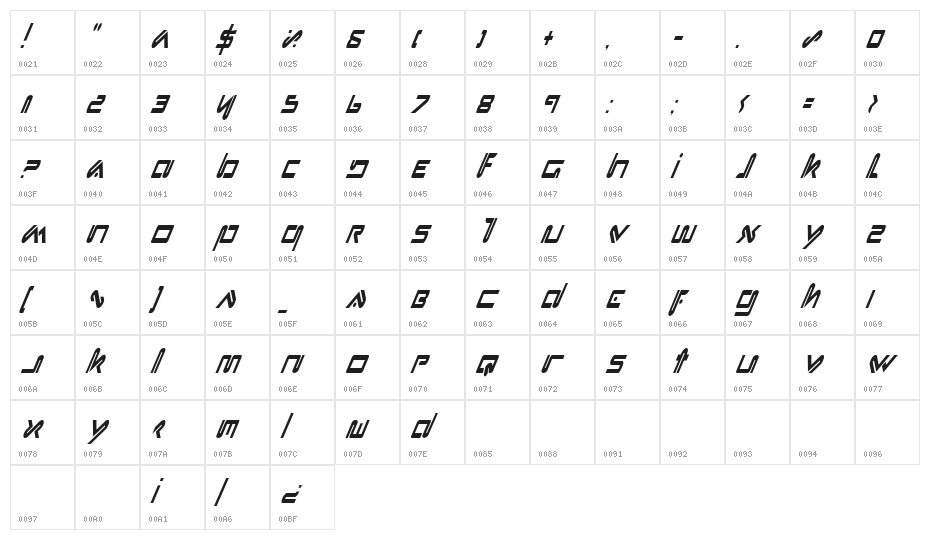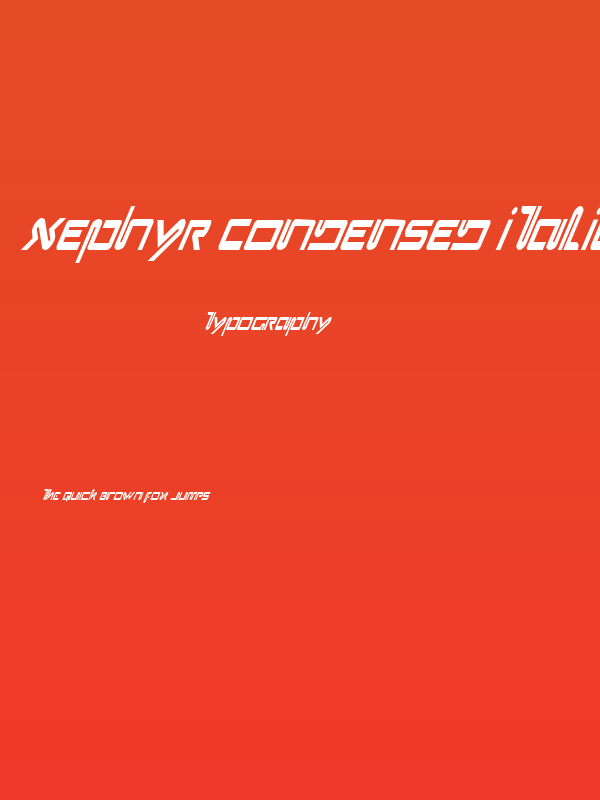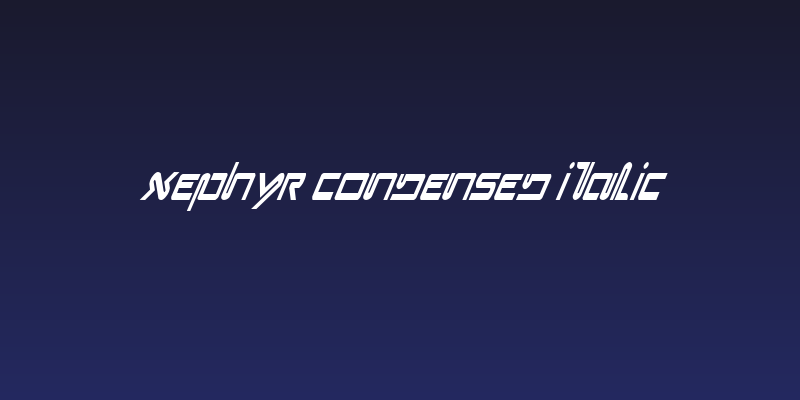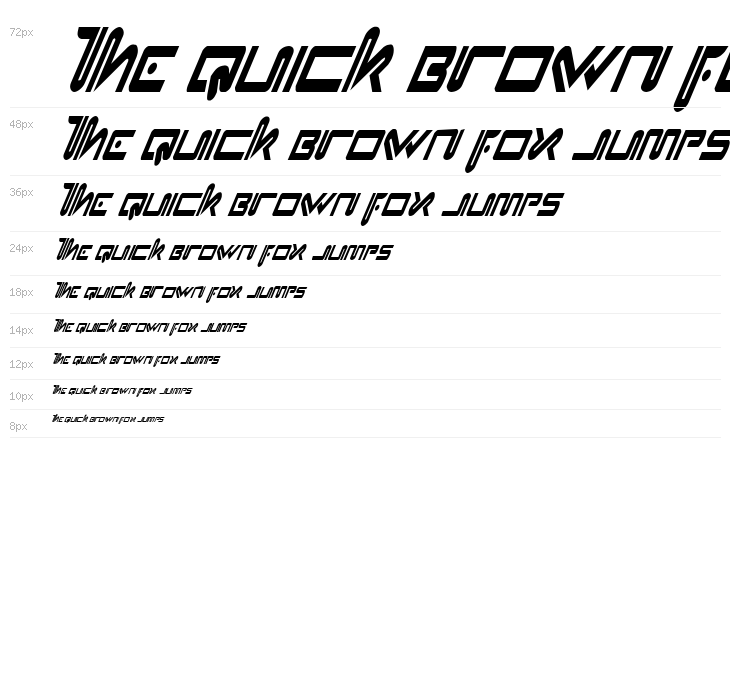
Xephyr Condensed Italic Font
Xephyr Condensed Italic Description
This font features a futuristic and dynamic design with a condensed and italicized style. The characters are sleek and angular, giving a sense of motion and speed. The strokes are bold and consistent, with sharp edges and a streamlined appearance. The uppercase and lowercase letters maintain a cohesive look, while the numerals and special characters complement the overall aesthetic. This font is ideal for projects that require a modern and edgy look, such as technology branding, sports team logos, or sci-fi themed designs.
| Use Case | Logos, Headlines |
| Proposed Projects | Ideal for technology branding, sports logos, and sci-fi themed designs. |